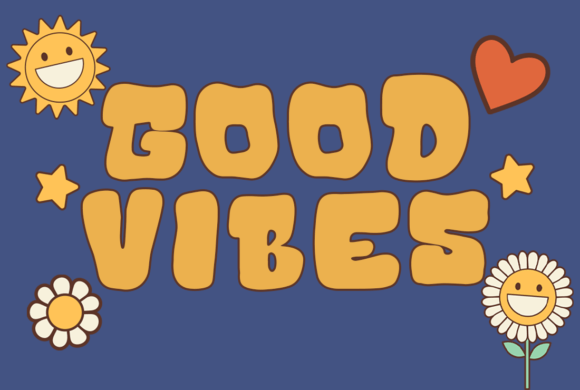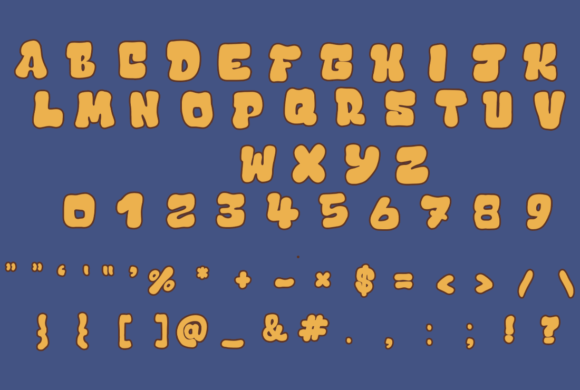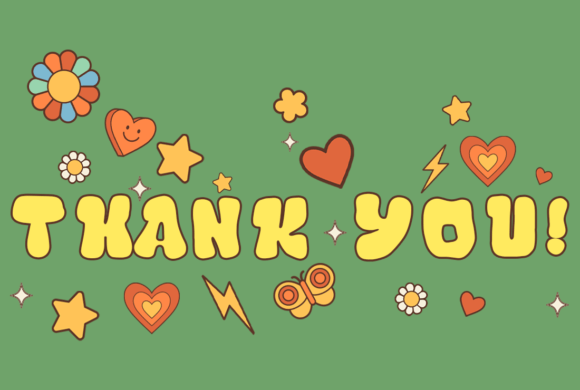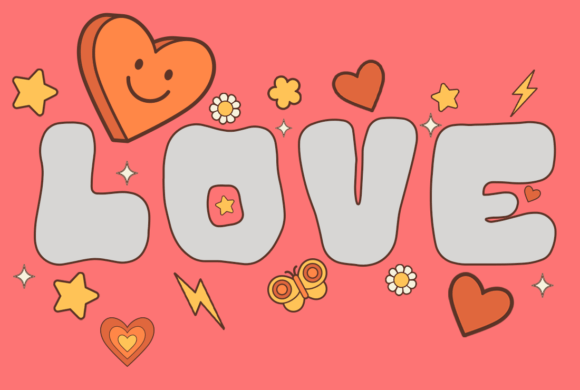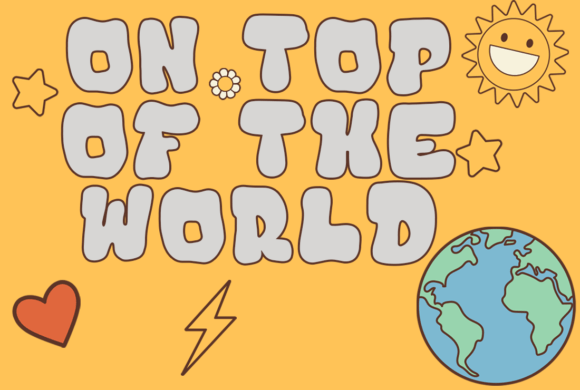
Introducing Fluffy Groovy Font: The Ultimate Retro Display Font for Creative Projects
Are you a designer or crafter looking for a font that can add a touch of cuteness and grooviness to your creative projects? Look no further than Fluffy Groovy Font! This retro display font is perfect for designing a wide range of products, from T-shirts and tote bags to wedding invitations and stickers. With its unique and playful style, Fluffy Groovy is sure to make any creative idea stand out.
What Makes Fluffy Groovy Font So Special?
Fluffy Groovy Font is a one-of-a-kind font that combines the best of retro and modern design elements. Its cute and groovy style is reminiscent of the 1960s and 1970s, but with a fresh and modern twist that makes it perfect for contemporary designs. The font features bold lines, rounded edges, and a playful flair that gives it a truly unique look.
Perfect for a Wide Range of Creative Projects
Fluffy Groovy Font is incredibly versatile and can be used for a wide range of creative projects. Here are just a few ideas to get you started:
- T-shirts and apparel: Add a fun and playful touch to your T-shirt designs with Fluffy Groovy Font. It’s perfect for creating eye-catching graphics and slogans that will make your designs stand out.
- Tote bags and accessories: Fluffy Groovy Font is also great for designing tote bags, hats, and other accessories. Its bold and playful style is sure to add a touch of personality to any product.
- Wedding invitations and stationery: If you’re looking for a font that can add a touch of whimsy and romance to your wedding invitations or stationery, Fluffy Groovy Font is a great choice.
- Stickers and decals: Fluffy Groovy Font is perfect for creating fun and colorful stickers and decals that can be used to decorate laptops, water bottles, and more.
- Logos and branding: If you’re looking for a font that can help you create a unique and memorable logo or brand identity, Fluffy Groovy Font is a great option.
Why Choose Fluffy Groovy Font?
So why should you choose Fluffy Groovy Font for your creative projects? Here are just a few reasons:
- Unique and eye-catching: Fluffy Groovy Font is a truly unique font that will help your designs stand out from the crowd.
- High-quality design: Fluffy Groovy Font is designed to high standards, ensuring that it looks great in any design.
- Versatile: Fluffy Groovy Font can be used for a wide range of creative projects, from T-shirts to wedding invitations.
Tips for Using Fluffy Groovy Font
Here are a few tips for using Fluffy Groovy Font in your designs:
- Experiment with different colors: Fluffy Groovy Font looks great in a wide range of colors, so don’t be afraid to experiment and find the perfect hue for your design.
- Use it with other fonts: Fluffy Groovy Font can be paired with other fonts to create a unique and interesting design.
- Keep it simple: While Fluffy Groovy Font is a bold and playful font, it’s often best to keep your design simple and uncluttered to ensure that the font really stands out.
Fluffy Groovy Font is a unique and versatile font that is perfect for designers and crafters looking to add a touch of cuteness and grooviness to their creative projects. With its bold and playful style, Fluffy Groovy Font is sure to make any design stand out. Whether you’re designing T-shirts, wedding invitations, or stickers, Fluffy Groovy Font is a great choice. So why not give it a try and see what amazing designs you can create?